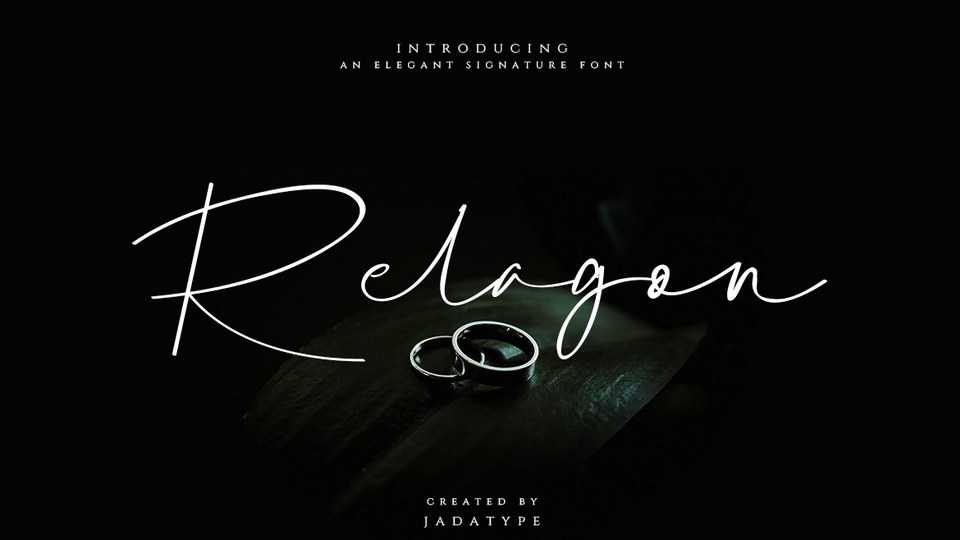
Download Relagon font, a casual signature style handwritten font with an elegant impression. Relagon can be applied to graphic designs such as ads, book covers, magazines, or used as logotypes, branding, and others.
Designer: Jadatype